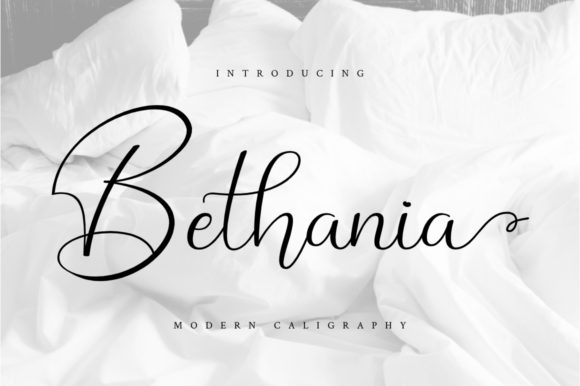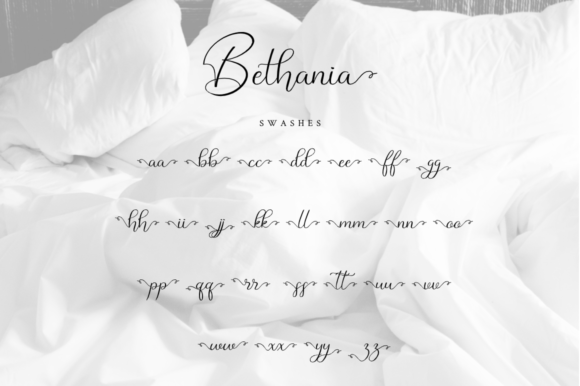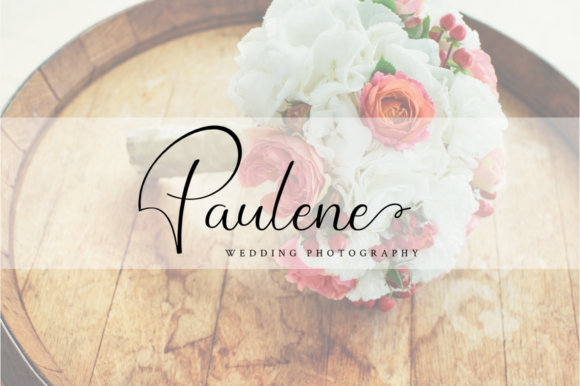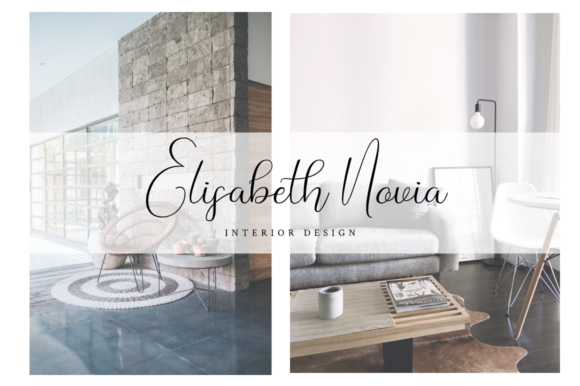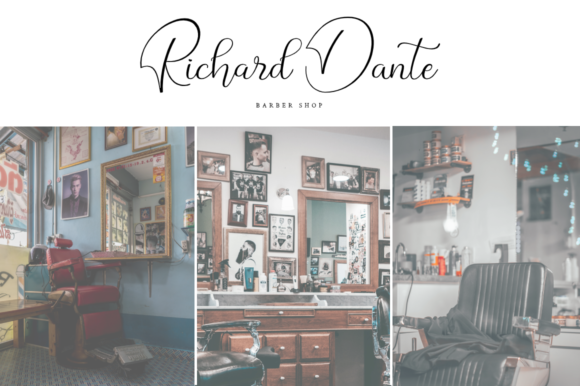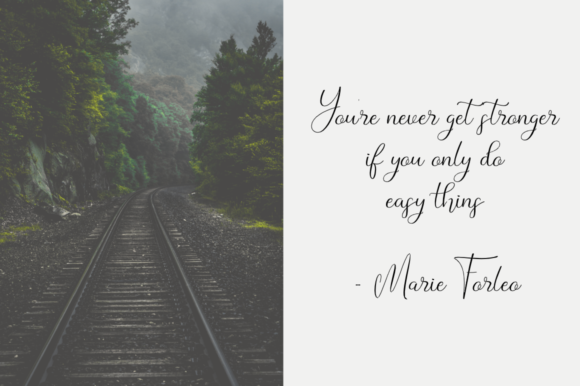
Bethania Font
About Bethania Font
Bethania is a luxury script font that is elegant and minimalist. It maintains its classy calligraphic influences while feeling contemporary and fresh. This versatility will appeal to a wide range of crafty ideas, from letterheads and titles to stationery.